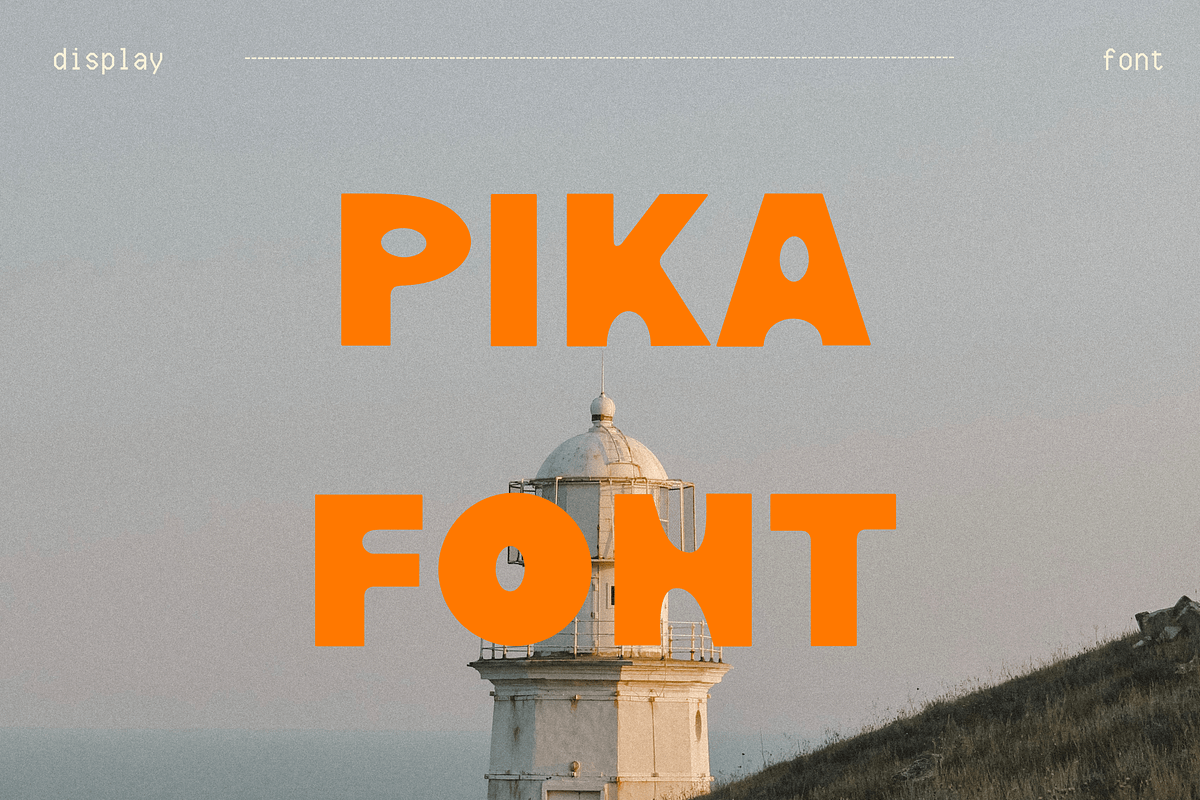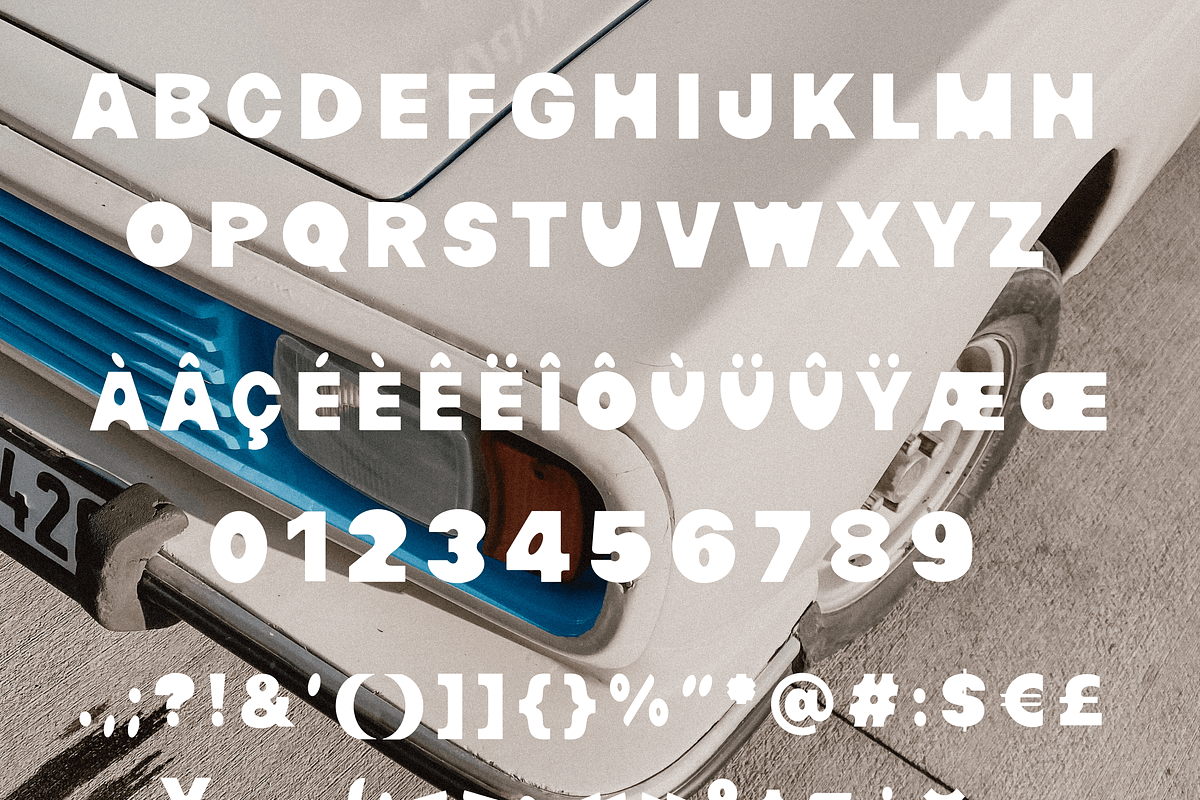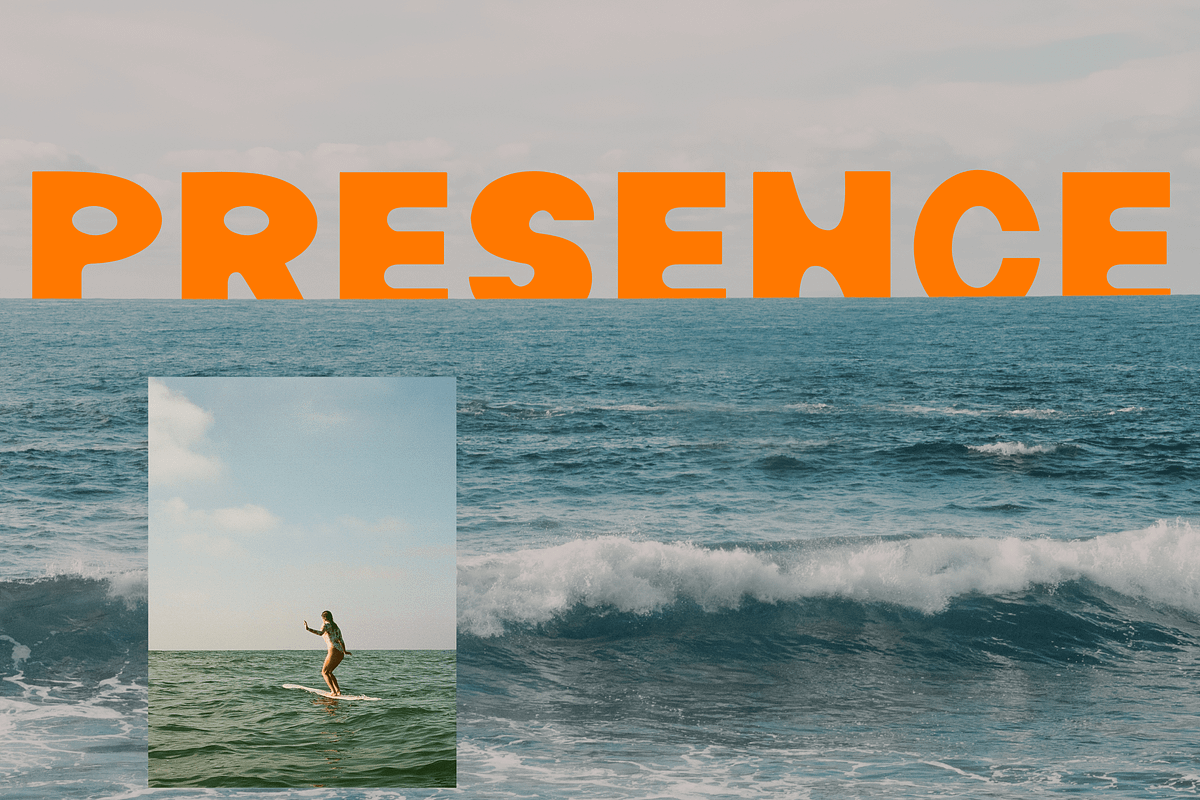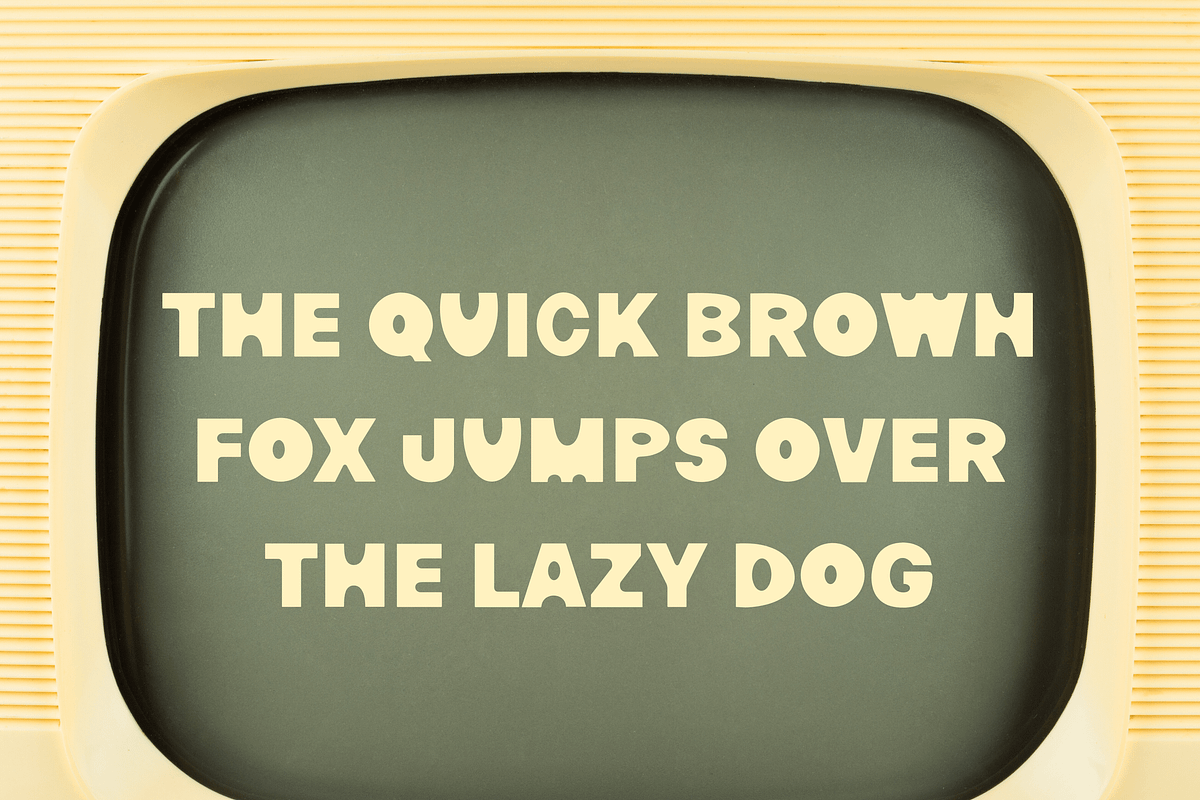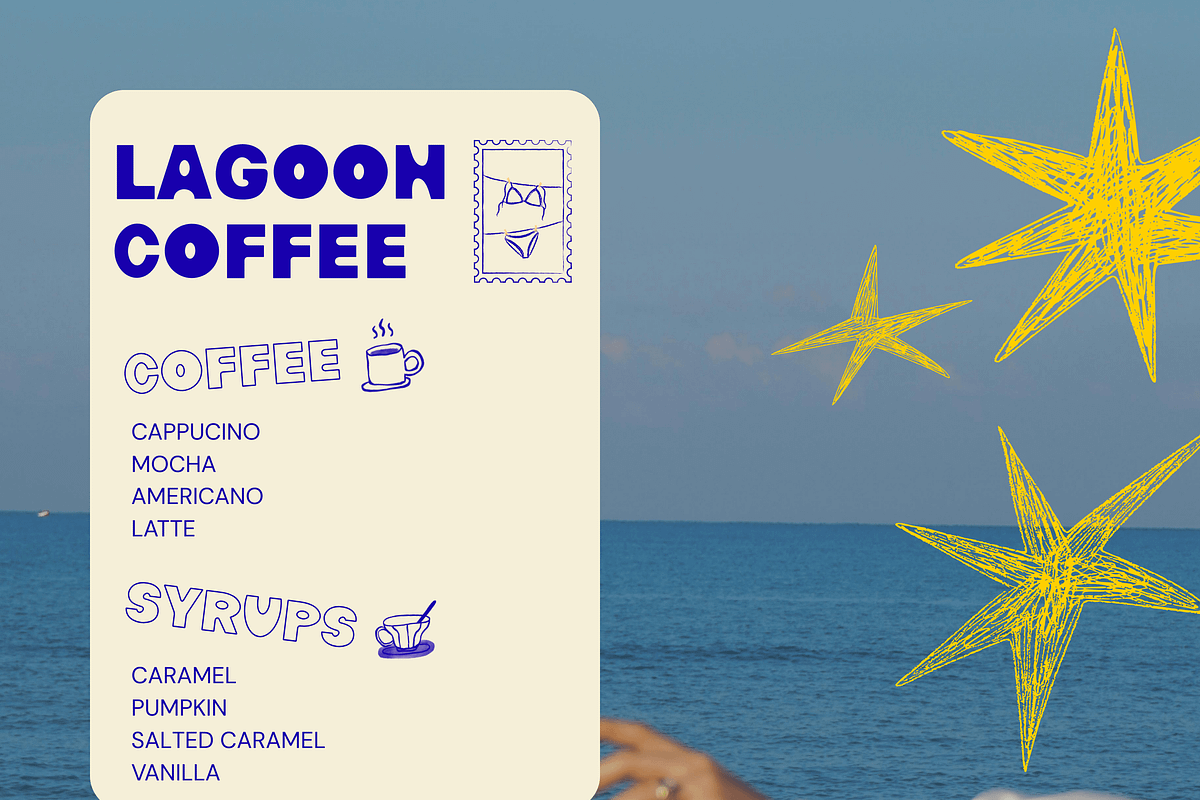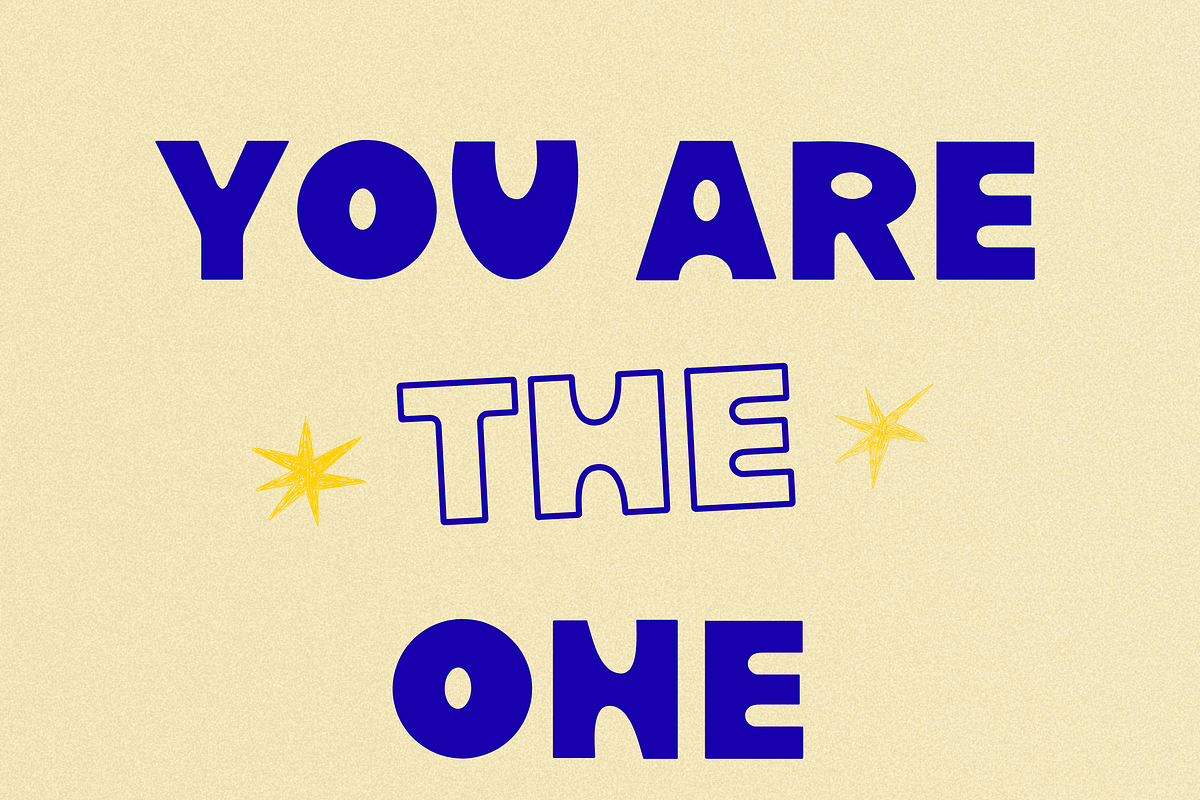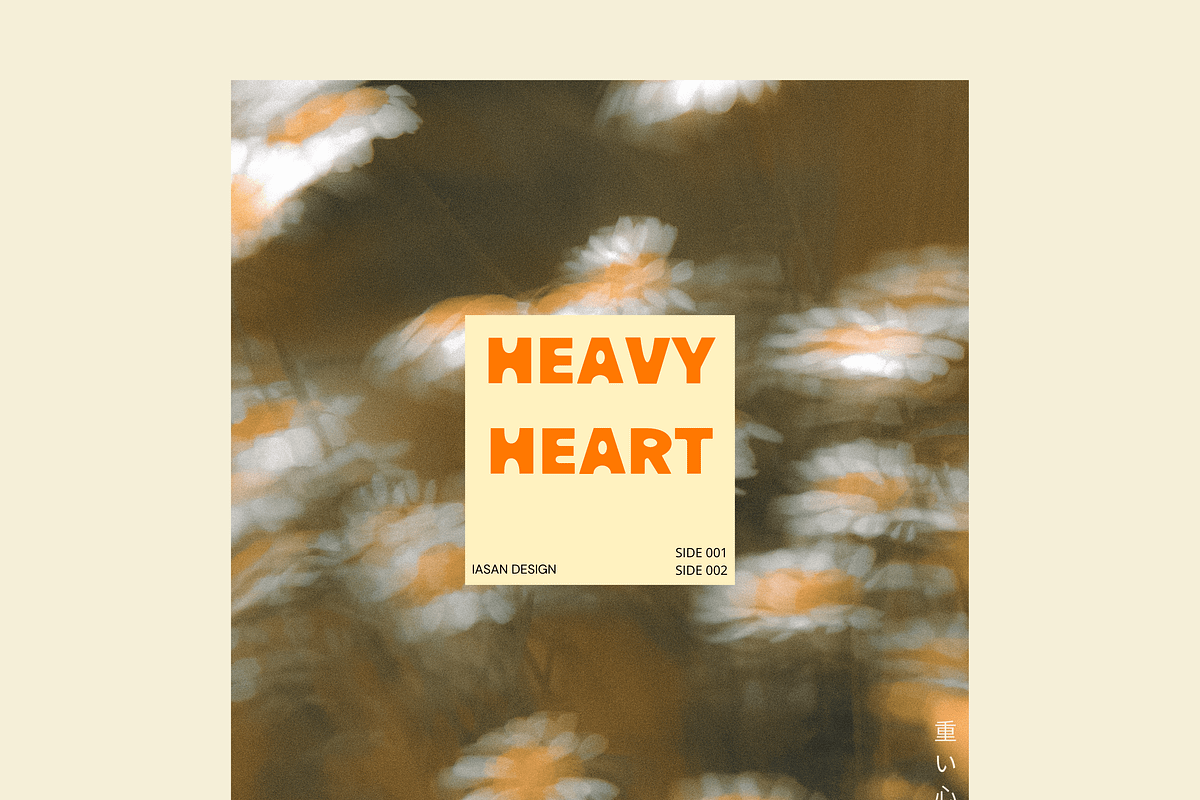
Pika - A playful and quirky font
PIKA is a playful, quirky display font full of spark and personality. With its rounded shapes and lively rhythm, it brings a fun, lighthearted energy to any design. Perfect for eye-catching titles, creative branding, or projects that need a touch of charm and whimsy.